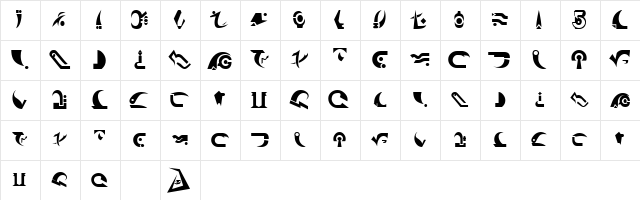
Babylon Centaur Normal Alien Script Free Font
Babylon Centaur Normal Alien Script
Style: Normal Alien Script
Design Context for Babylon Centaur
Babylon Centaur flows with the natural rhythm of handwritten lettering, making it ideal for designs that call for warmth and personal expression.
Font Pairing: Combine Babylon Centaur with a simple geometric sans for maximum contrast - the tension between flowing curves and clean structure is a classic typographic pairing.
Pro Tip: Use Babylon Centaur for short runs of text - names, titles, or taglines. Extended body copy in script faces tires the eye quickly.